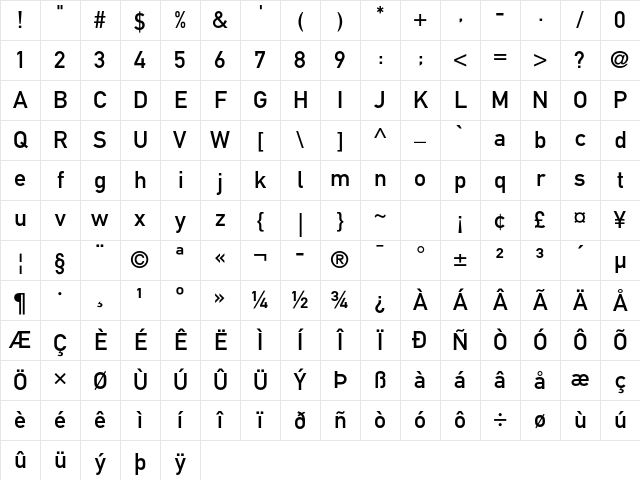
DIN 1451 Std Mittelschrift
Style: Mittelschrift
Designer: Linotype Staff
Complete DIN 1451 Std Mittelschrift glyph index. Displaying only characters natively supported by DIN 1451 Std Mittelschrift font.
Design Context for DIN 1451 Std
DIN 1451 Std is a composed and adaptable typeface that performs quietly and consistently across a wide range of design contexts.